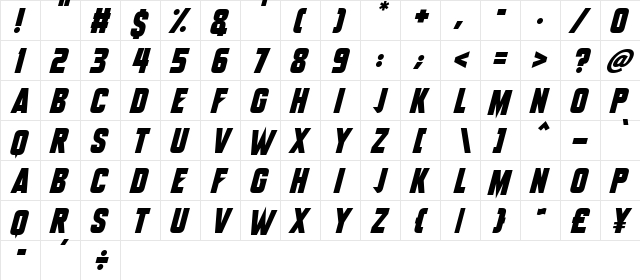
Monster Mech Italic
Design Context for Monster Mech Typeface
Monster Mech is a composed and adaptable typeface that performs quietly and consistently across a wide range of design contexts. Its italic angle brings a sense of urgency and motion to the letterforms.
Pro Tip: Use Monster Mech for emphasis, pull quotes, and subheadings where its slanted energy can add rhythm to the layout.